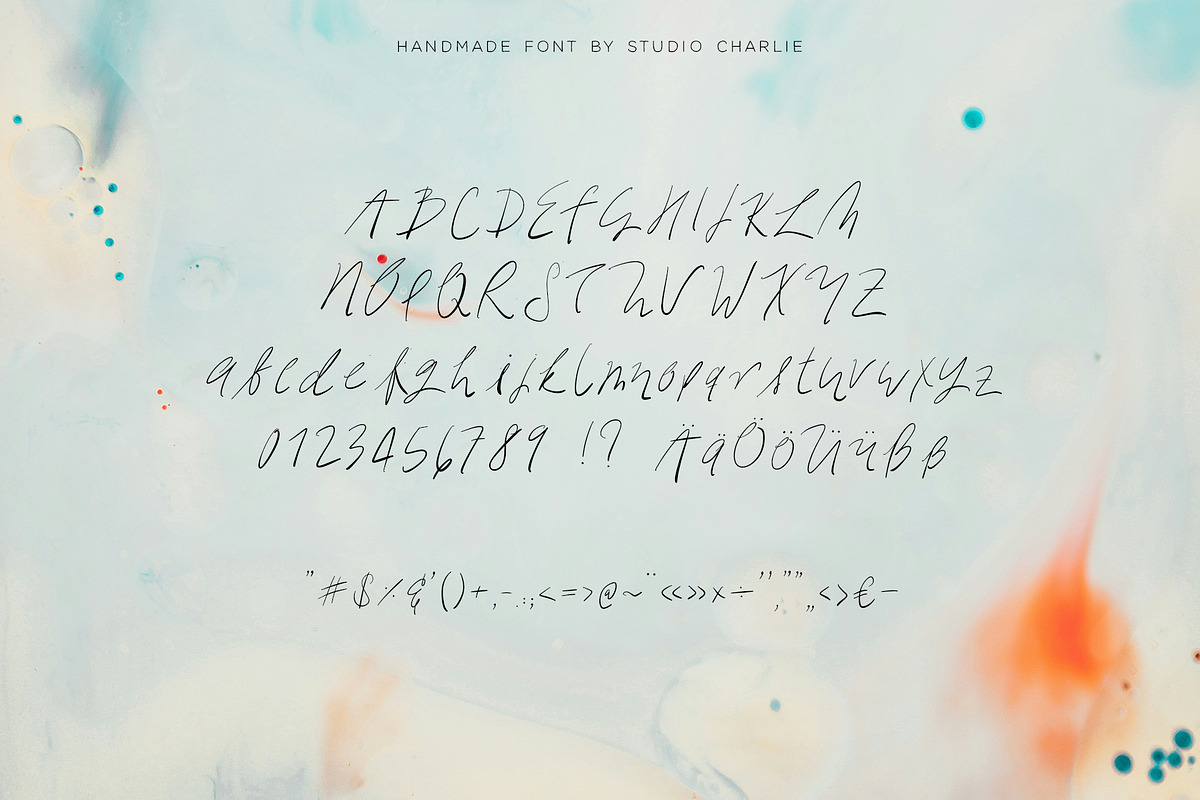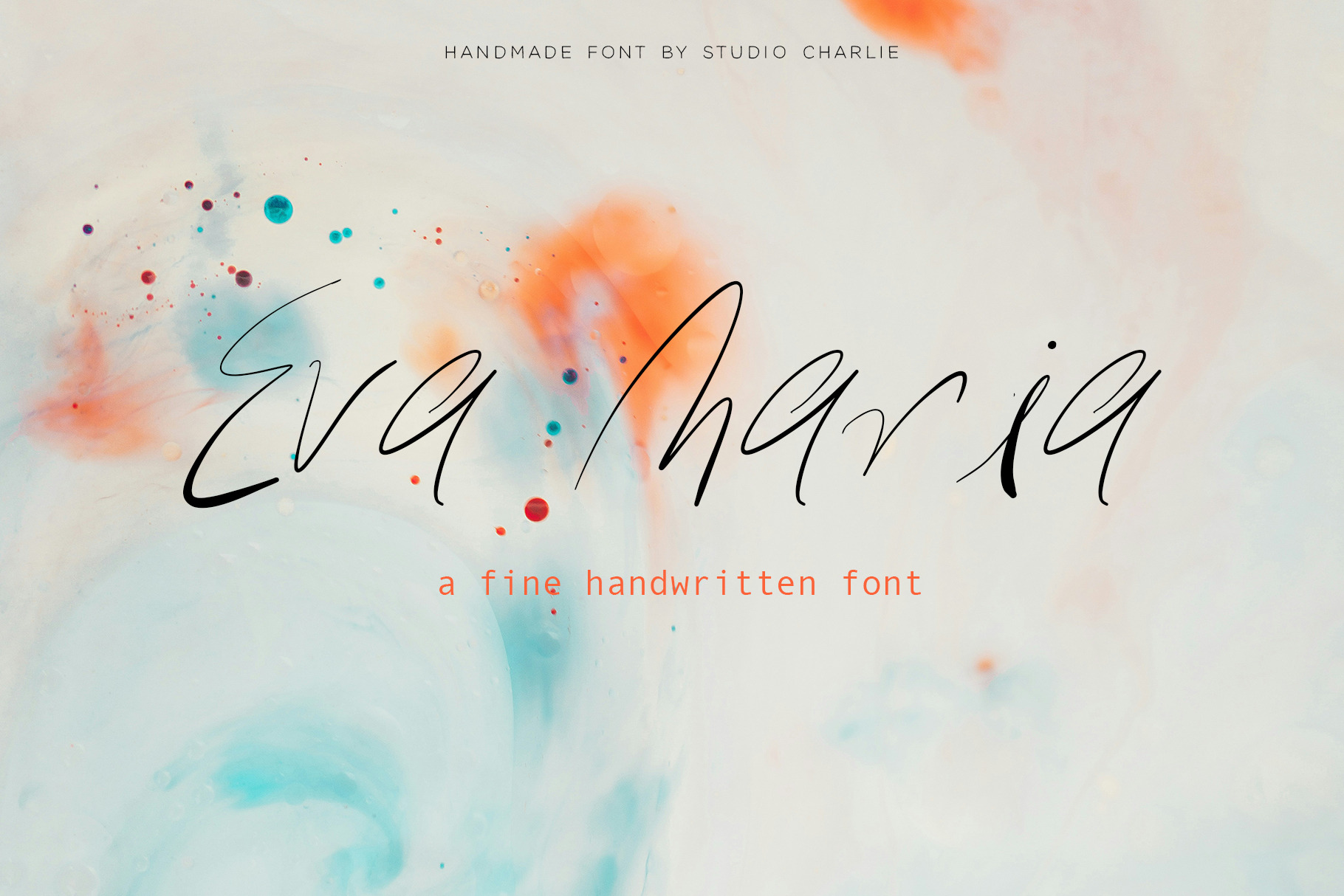
Eva Maria - A Very Elegant Font
Eva Maria is a very elegant and fine calligraphy font that supports English and German characters. The OTF font file comes with a full alphabet of both lower- and uppcase letters as well as numbers and punctuation. Some extra glyphs have been added for fun writing.